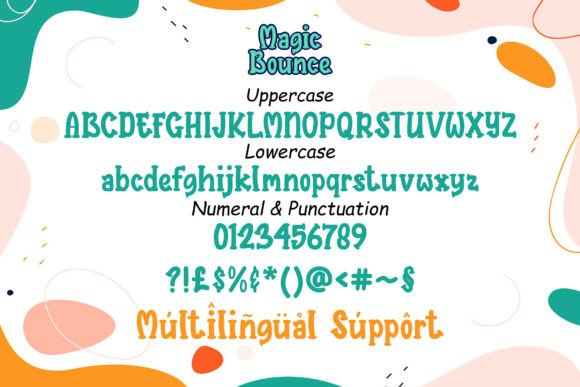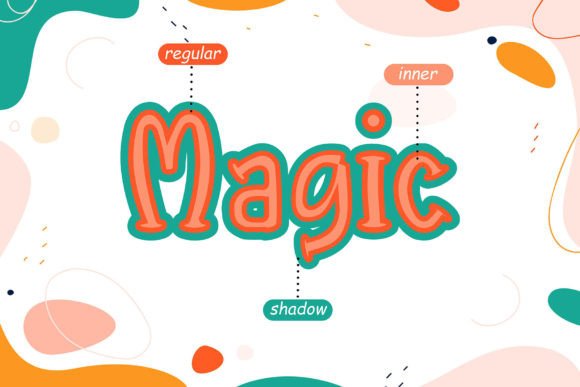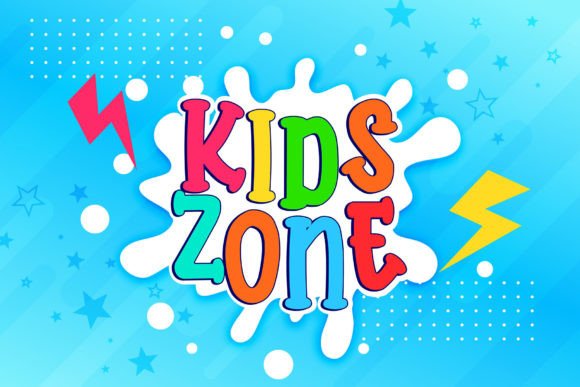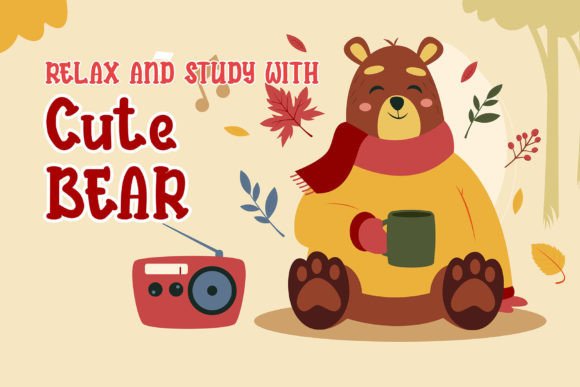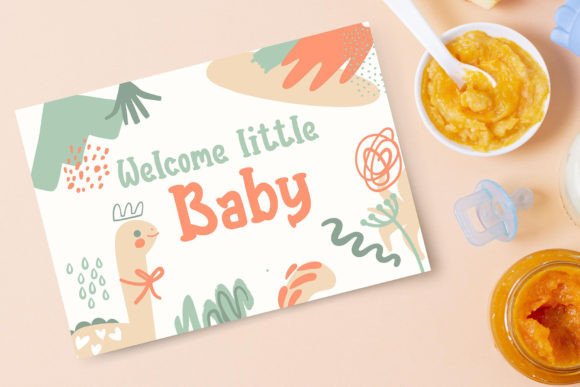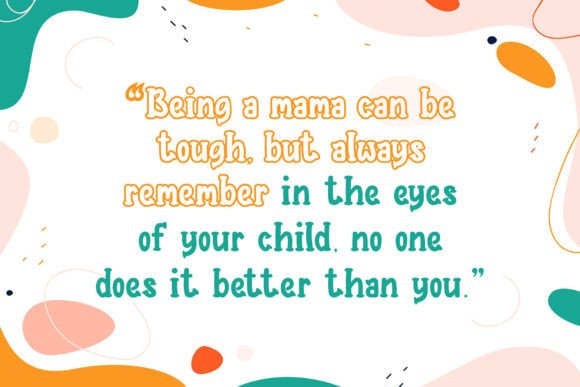
Introduction to Magic Bounce Font
“Magic Bounce” is a cute display font with three unique layers: regular, inner shadow, and outer shadow.
This font is designed to add a playful and charming touch to your designs The regular layer provides a delightful and whimsical appearance, while the inner and outer shadow layers add depth and dimension, giving your text a bouncing and magical effect.